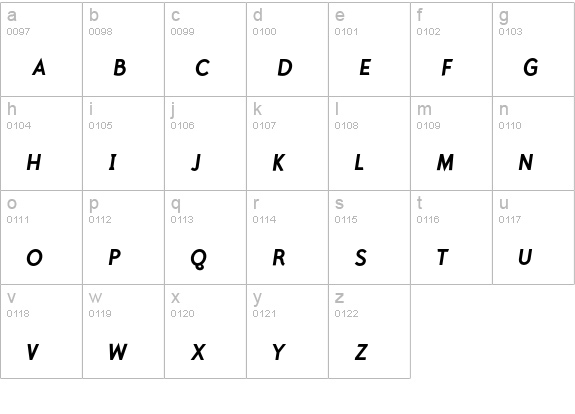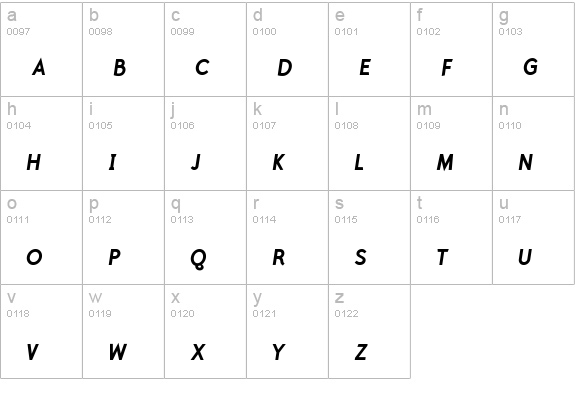
PolymerMediumCapsItalic Font Details
PolymerMediumCapsItalic is a stylish and versatile font that is perfect for adding a touch of sophistication to your design projects. With its medium weight and elegant italicized style, this font is ideal for creating eye-catching headlines, titles, and branding materials. The unique blend of modernity and classic charm makes PolymerMediumCapsItalic a popular choice for designers looking to make a statement. The best part? PolymerMediumCapsItalic is available for free download at FontsMarket.com. Whether you're working on a personal project or a professional assignment, this font is sure to elevate your work and leave a lasting impression. Don't miss out on the opportunity to add this beautiful typeface to your font collection today.